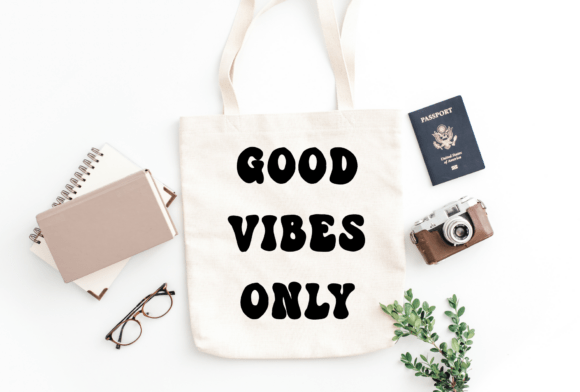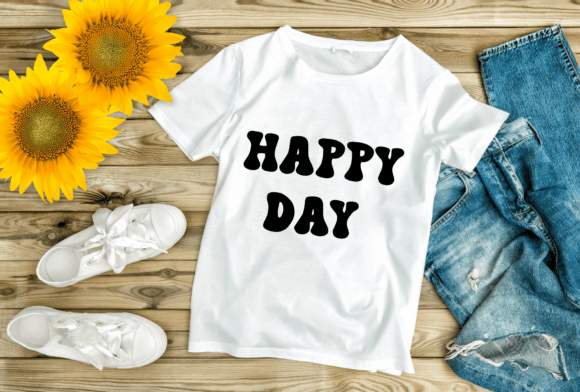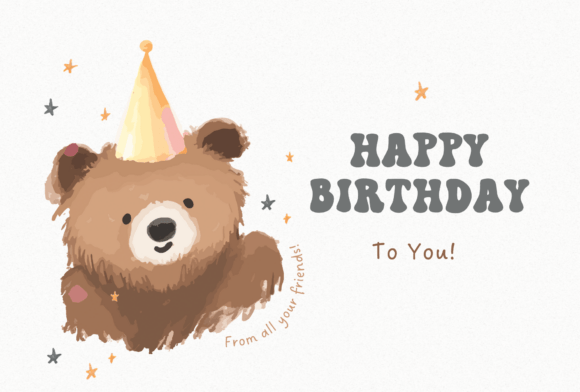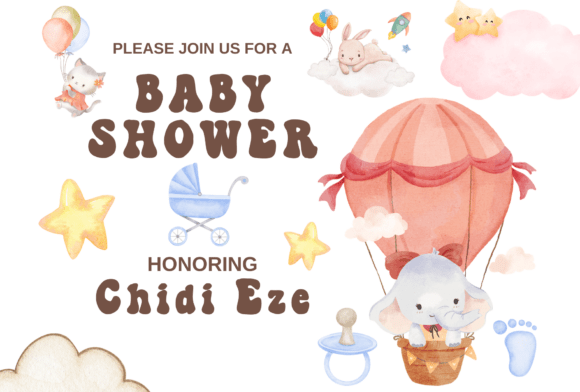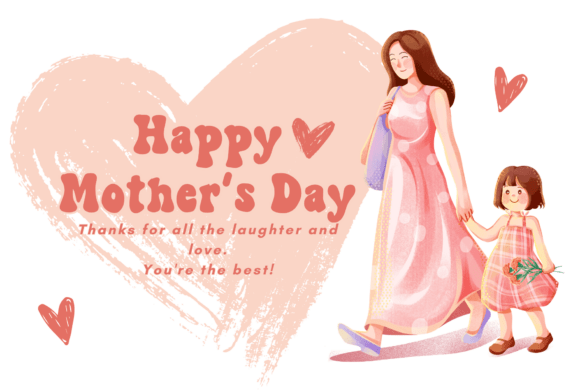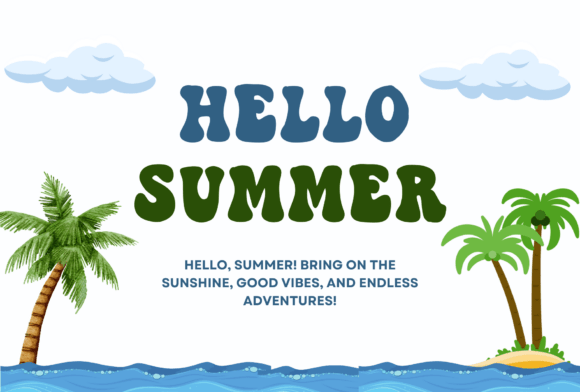
Introduction to Retro Waffle Font
Introducing Retro Waffle, a delightfully chunky and playful retro font that brings a sweet dash of nostalgia to your designs—perfectly blending bubbly curves, bold personality, and vintage charm reminiscent of 70s diner menus, groovy party invites, and all things fun, funky, and full of flavor.
Introducing Retro Waffle, a delightfully chunky and playful retro font that brings a sweet dash of nostalgia to your designs—perfectly blending bubbly curves, bold personality, and vintage charm remin